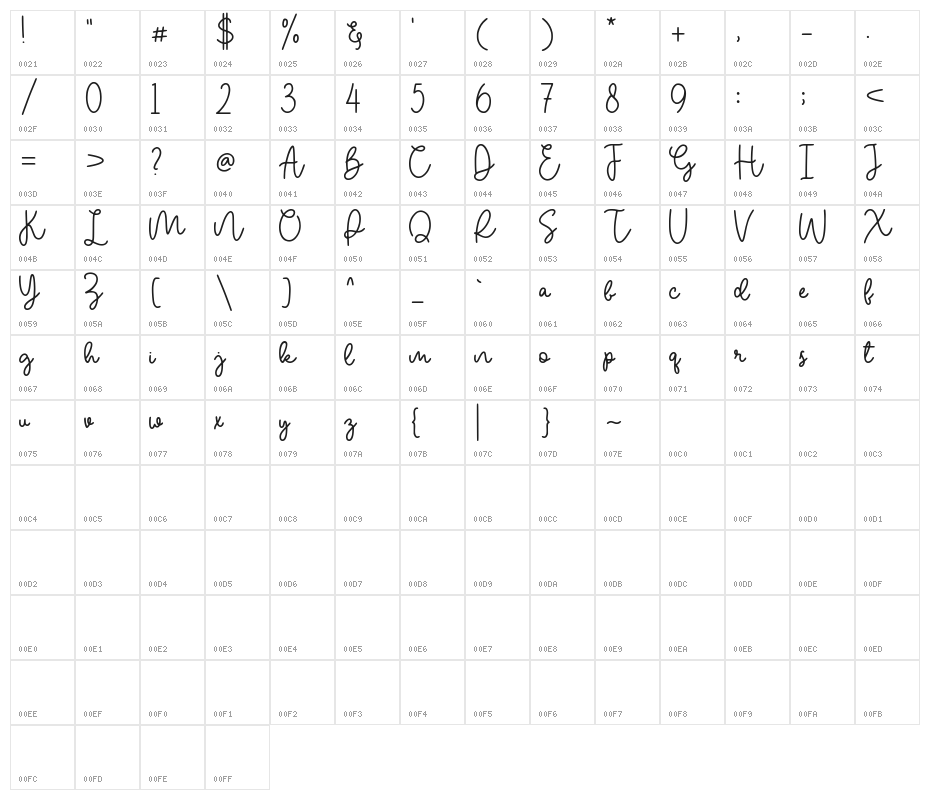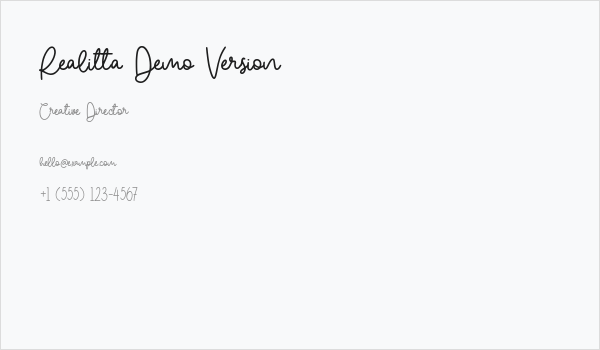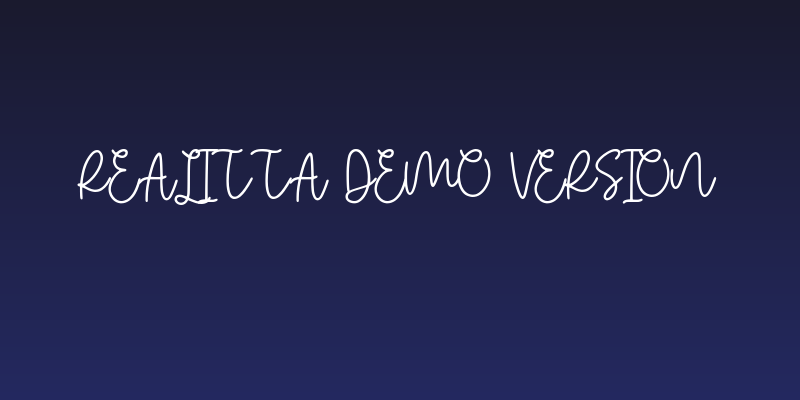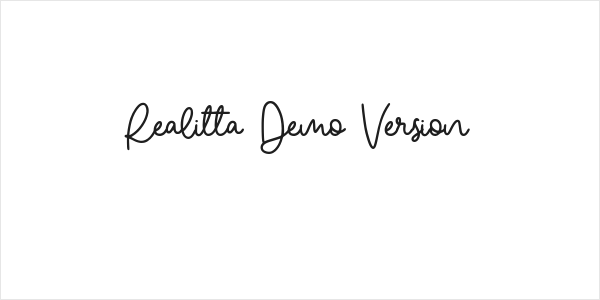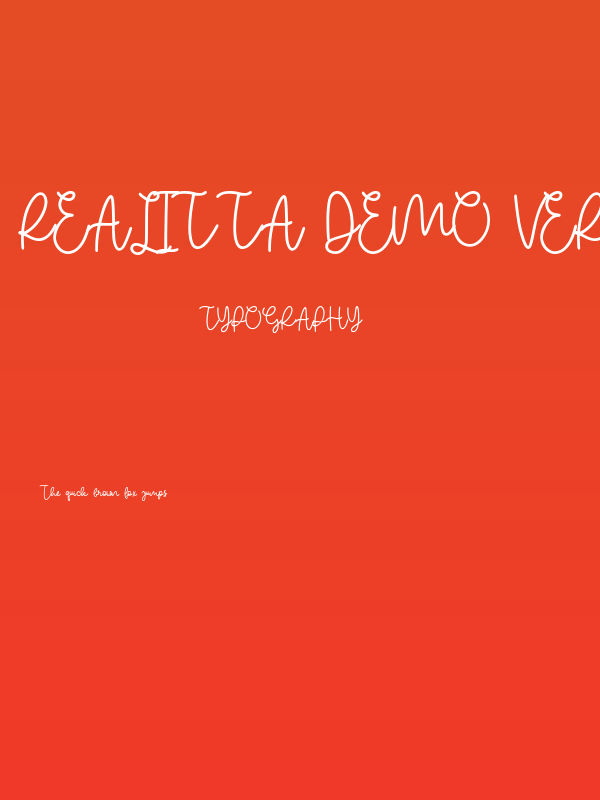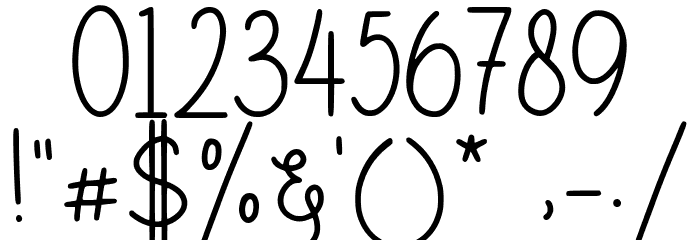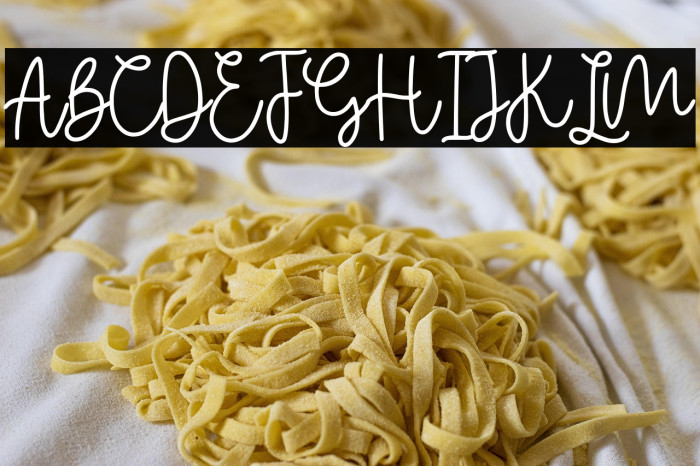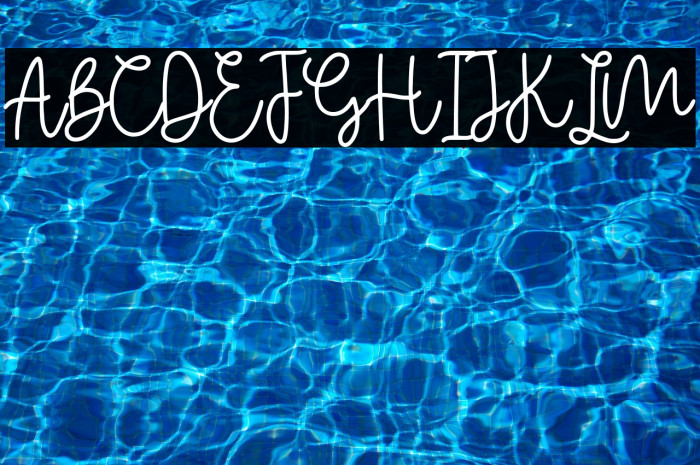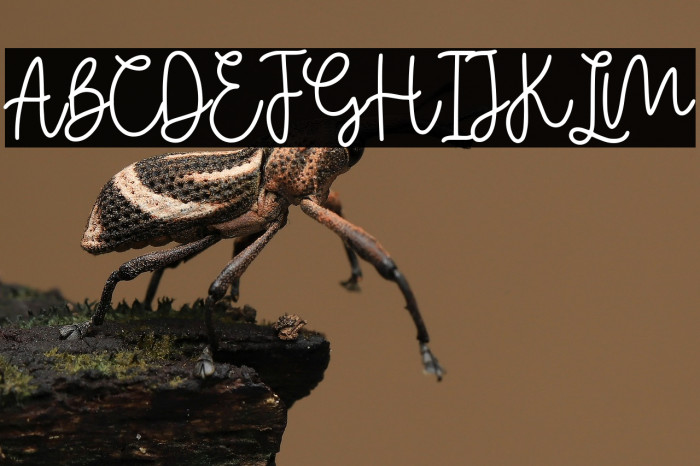
Realitta Demo Version Font
Realitta Demo Version Description
This font features a playful and casual handwritten style, characterized by its fluid and continuous strokes. The uppercase letters maintain a consistent height, while the lowercase letters exhibit a charming irregularity, adding to its informal appeal. The numbers are clear and legible, maintaining the same whimsical style as the letters. Special characters are well-integrated, ensuring versatility in various design contexts. The overall appearance is friendly and approachable, making it suitable for projects that require a personal touch.
| Use Case | Logos, Headlines, Social Media |
| Proposed Projects | Ideal for greeting cards, invitations, personal branding, and social media graphics. |